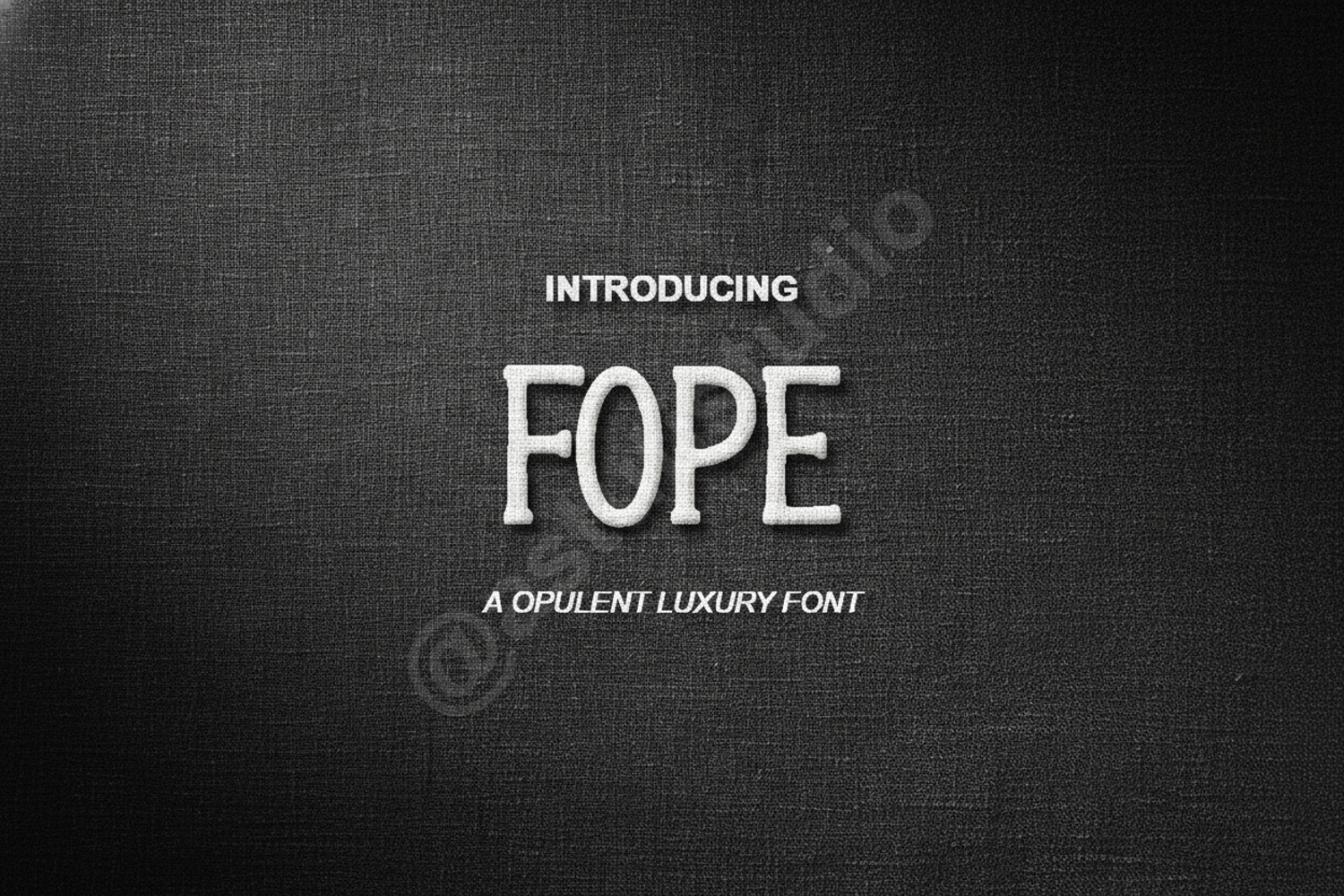
Fope - Modern Geometric Sans Serif
Fope
Fope is a premium geometric sans serif typeface designed for creators who demand clarity and modern sophistication. This font balances mathematical precision with a human touch, making it an essential addition to any designer's toolkit. Whether you are building a brand from scratch or refining an editorial layout, Fope provides the versatility and professional polish required for high-end results.
- Standard Ligatures and Stylistic Alternates
- Branding and Identity: Craft striking logos and cohesive brand guidelines.
- Editorial Design: Enhance magazine layouts, book covers, and headlines.
- Digital Presence: Ensure high legibility for website headers and mobile UI components.
- Marketing Materials: Create impactful posters, flyers, and professional presentations.
- Social Media: Design clean, eye-catching graphics for Instagram and Pinterest.